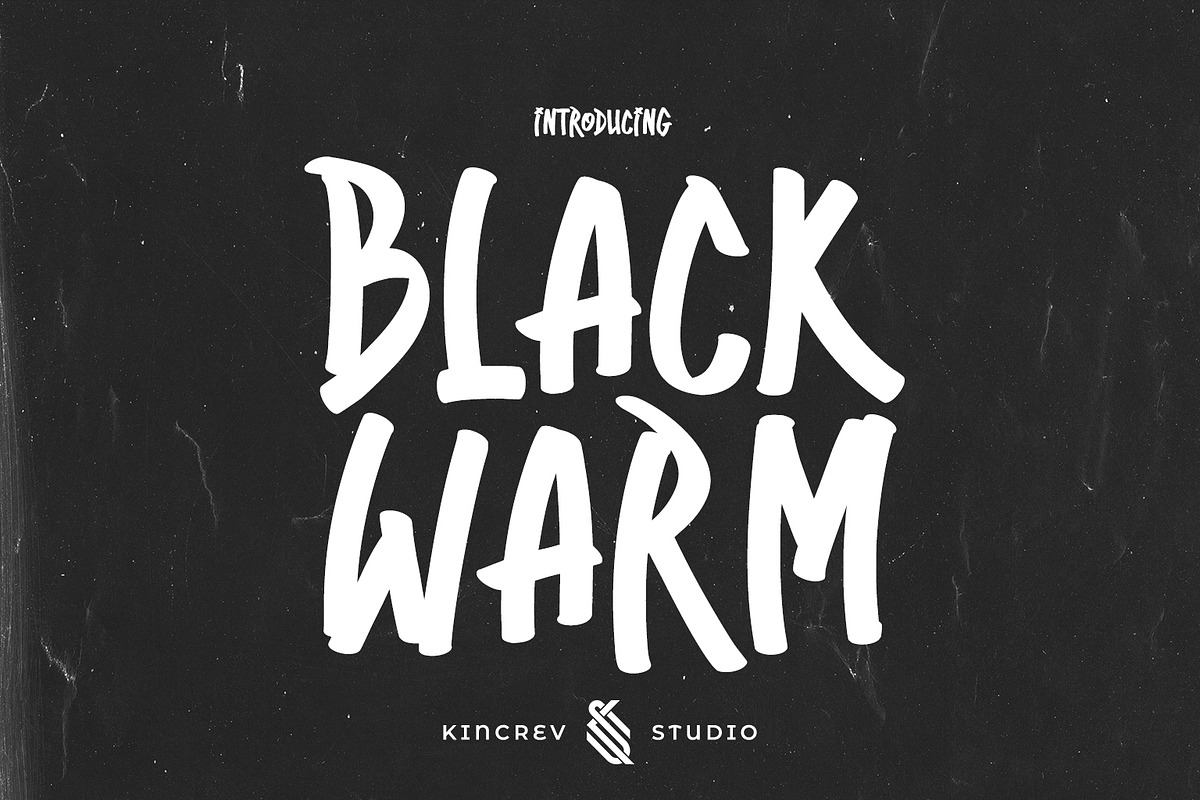
Black Warm - Handwriting Font Free Download
The Black Warm - Handwriting Font Free Download is a stylish and personal typeface designed to add a warm, handwritten touch to your designs. With its smooth, flowing curves and natural handwriting style, this font is perfect for creating invitations, greeting cards, branding, and social media posts that need a personal, inviting feel.
Black Warm - Handwriting Font Free Download is ideal for designers looking for a font that brings a relaxed, intimate vibe to their work. Whether you're designing for a wedding, a personal brand, or any creative project, this font adds a touch of warmth and elegance. Download this beautiful handwritten font today and give your designs a unique, humanized flair!